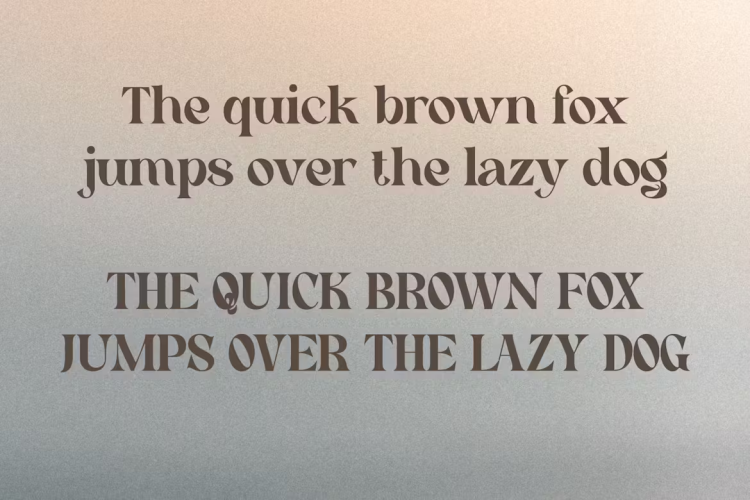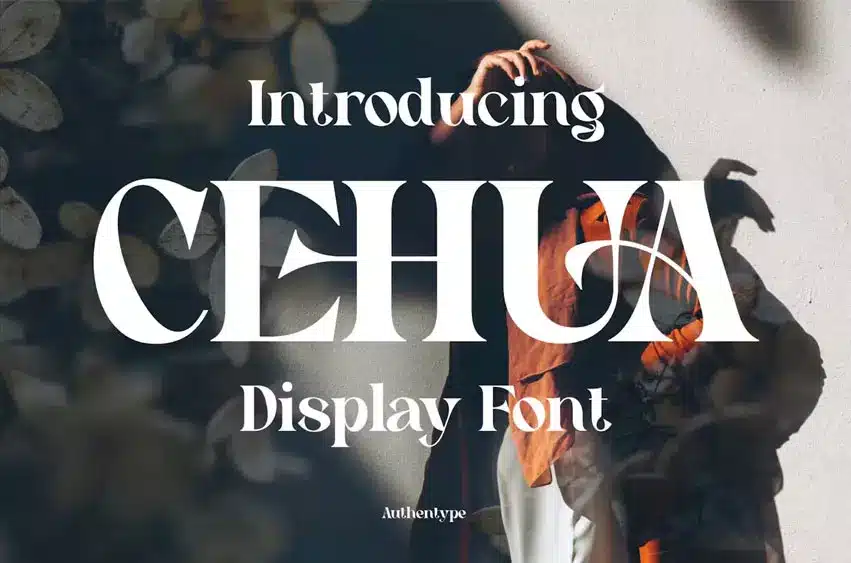
Cehua Font
Cehua Font is a beautiful, high-contrast font that works well for beauty product branding. It contains a variety of letters and ligatures that add a feminine feel to your designs.
Where Cehua Font works best
Cehua Font is built for size: event posters, hero headlines and billboard-style layouts.
High contrast display type like Cehua Font reads instantly in thumbnails and motion graphics.
What is Cehua Font good for?